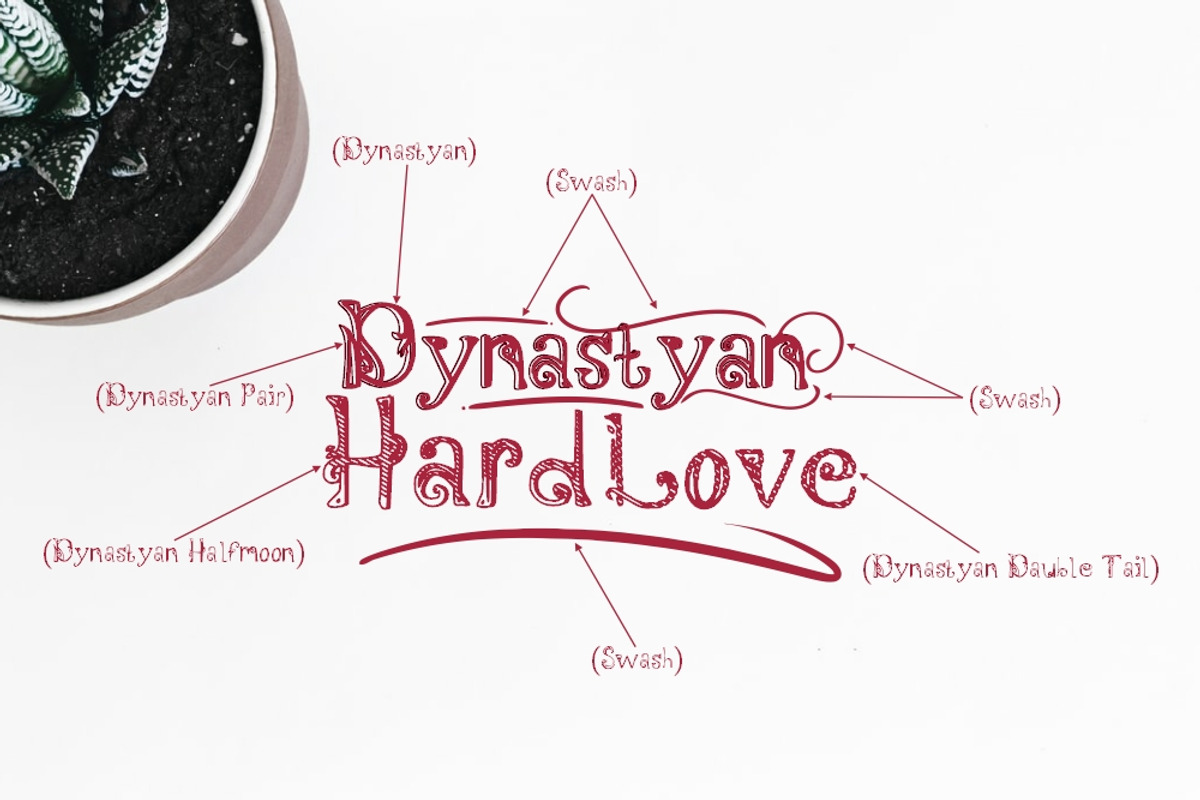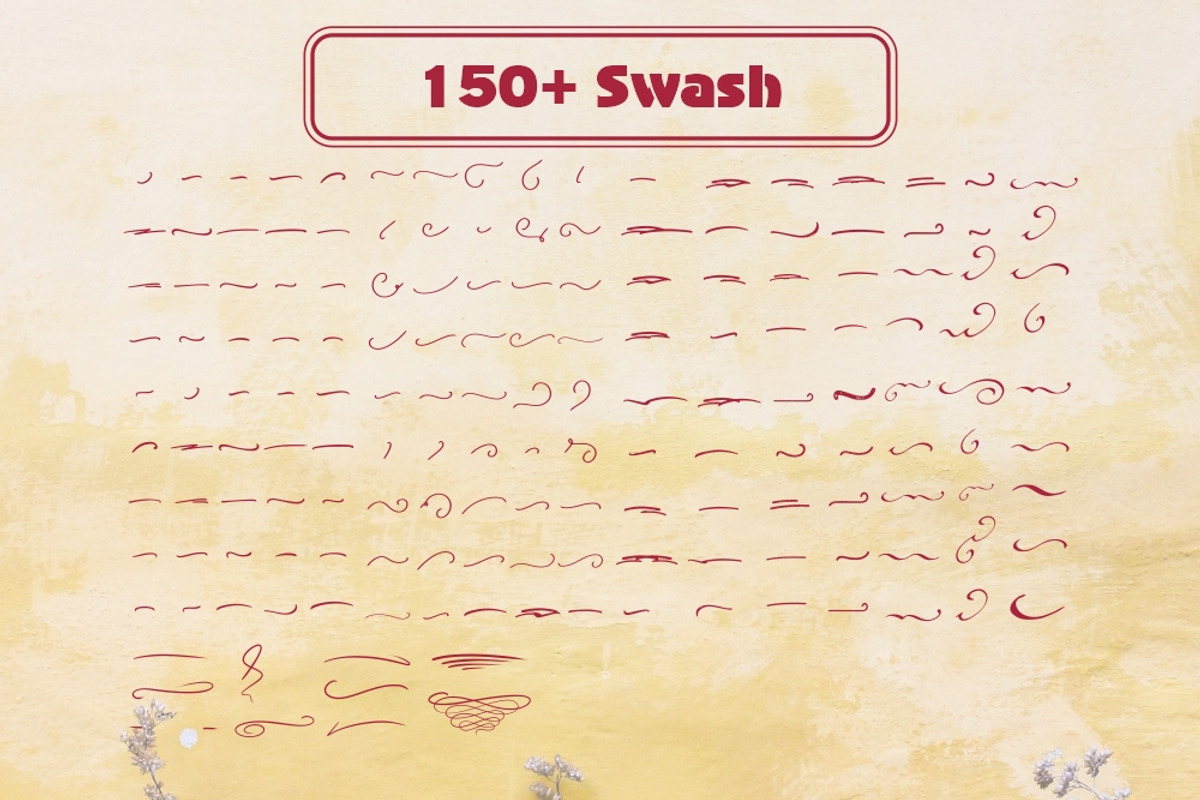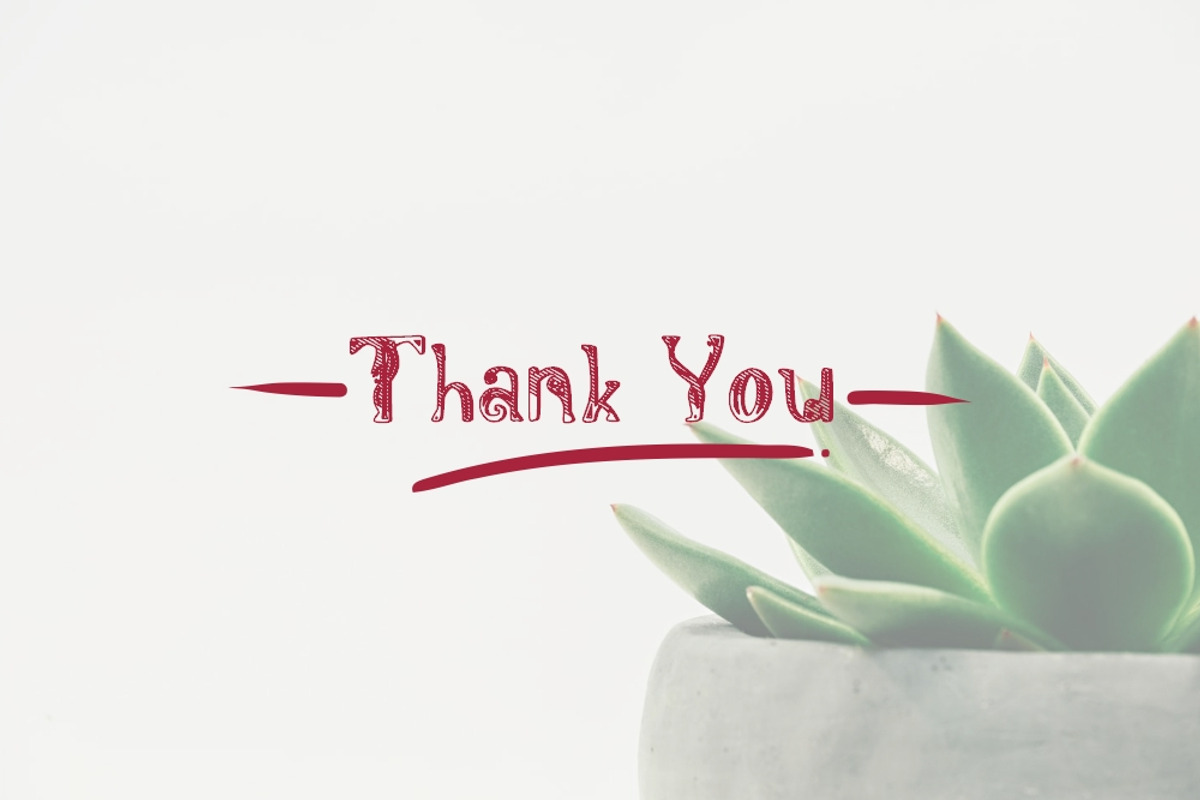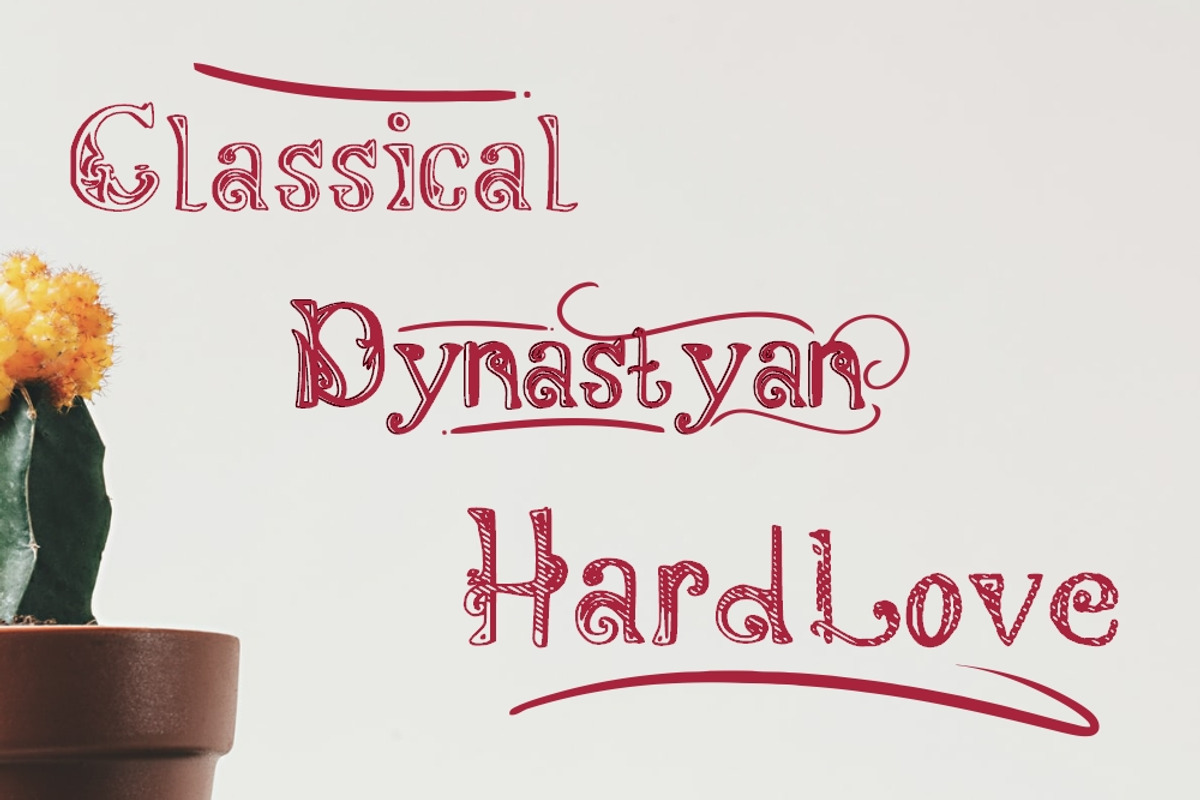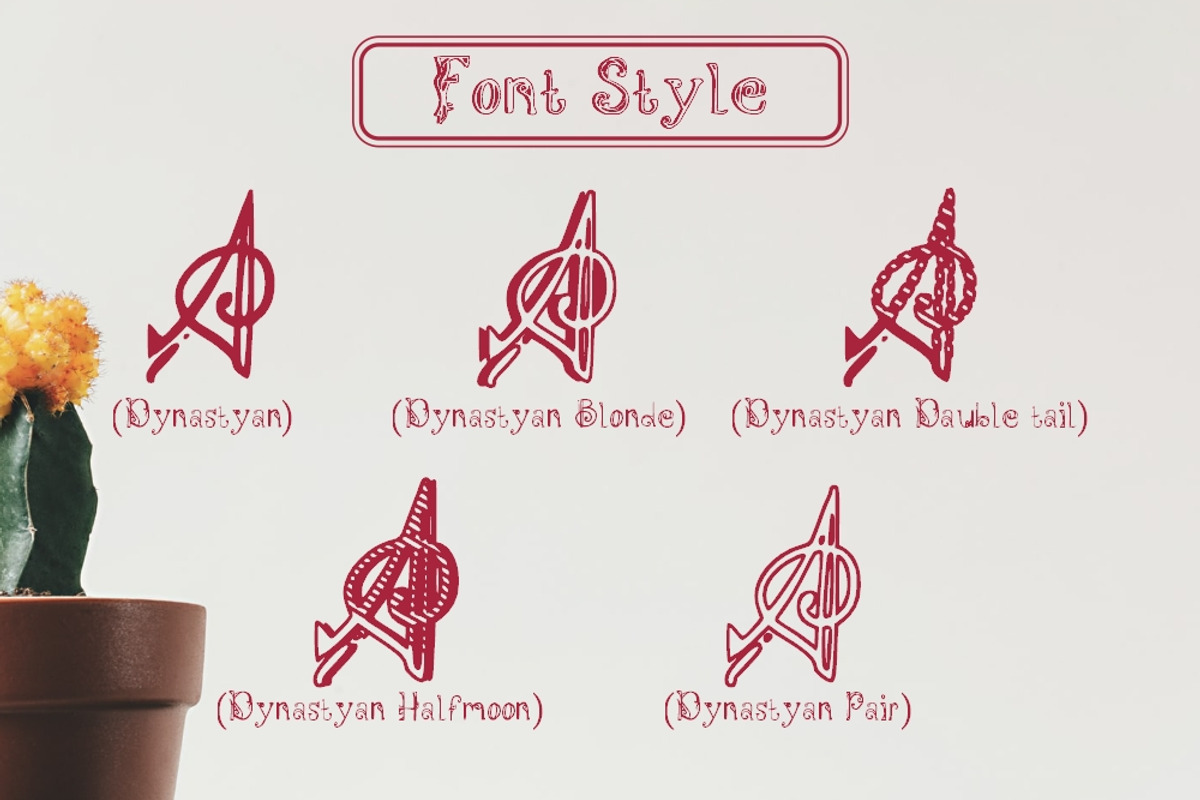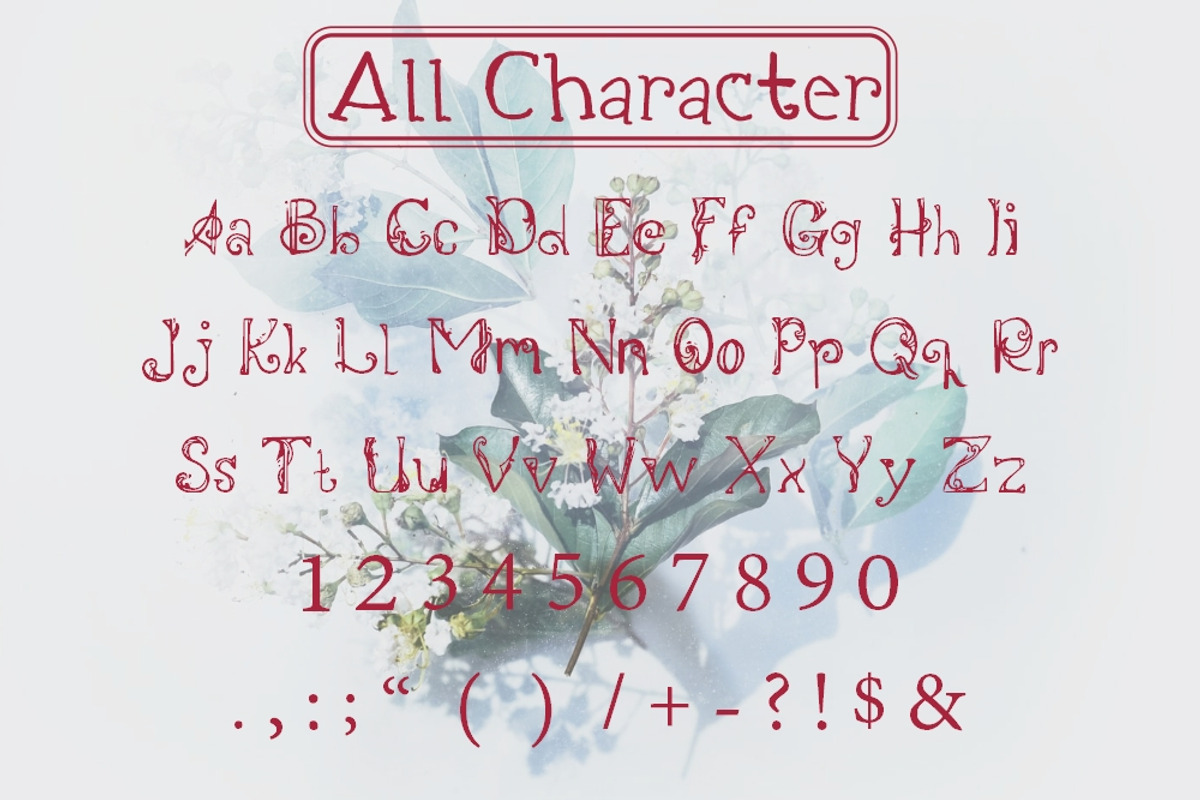
Dynastyan - 5 Font styles
Dynastyan - 5 Font styles and 150+ Swashes
Dynastyan represents the best of organic curves with sharp modern edges. Sophisticated and edgy, it's everything you want out of a display font. It looks amazing at large sizes and, also, small sizes.
Dynastyan Dauble tail
- Looks great packaged on wrapping, bottles and jars or digitally on websites, social and apps or printed on newspapers, magazines and flyers.
- Dynastyan Regular
- Dynastyan Blonde
- Dynastyan Dauble Tail
- Dynastyan Halfmoon
- Dynastyan Pair
Dynastyan - 5 Font styles by Gblack Id fits naturally into Branding, posters, packaging, typography.